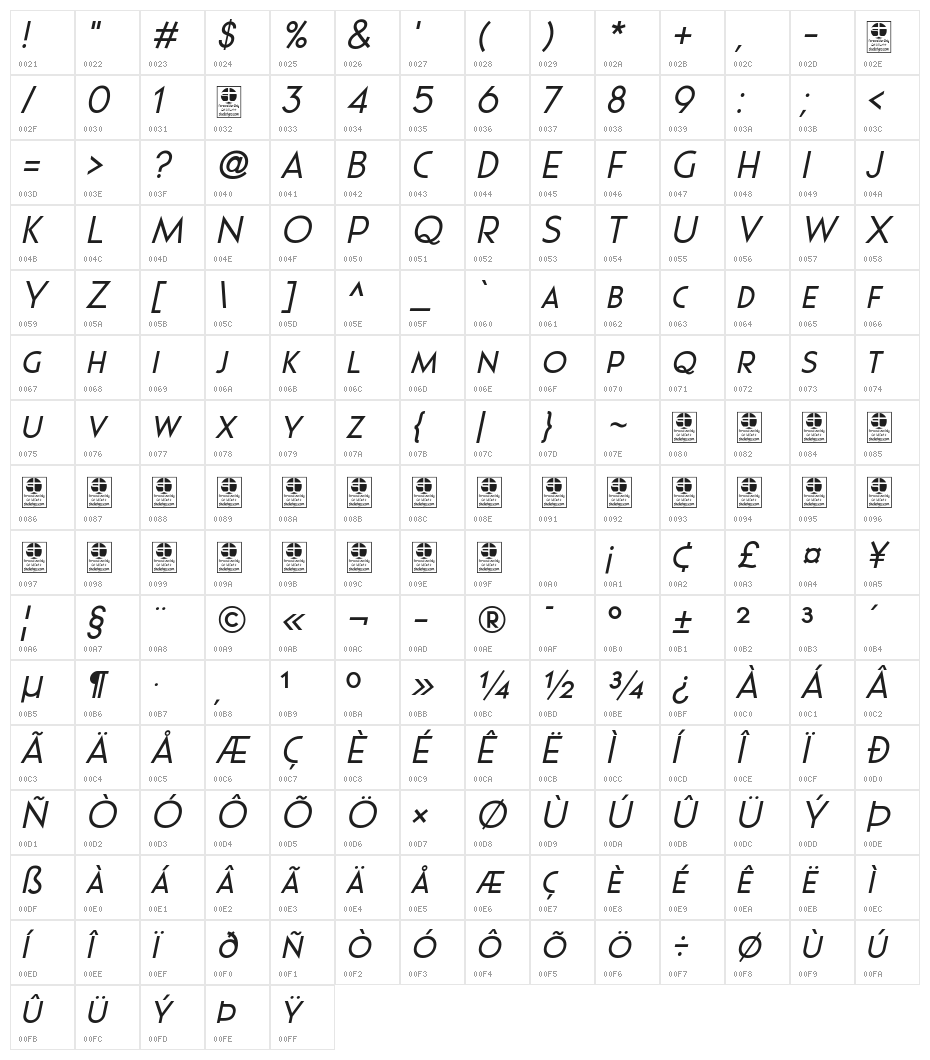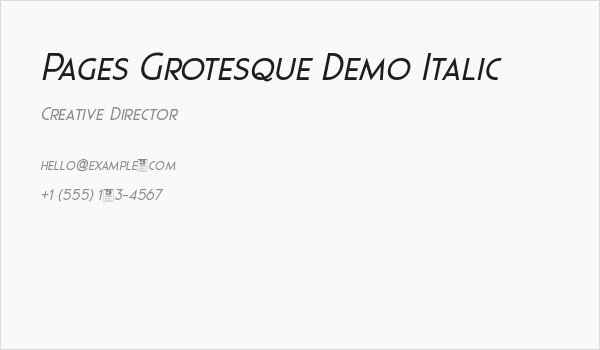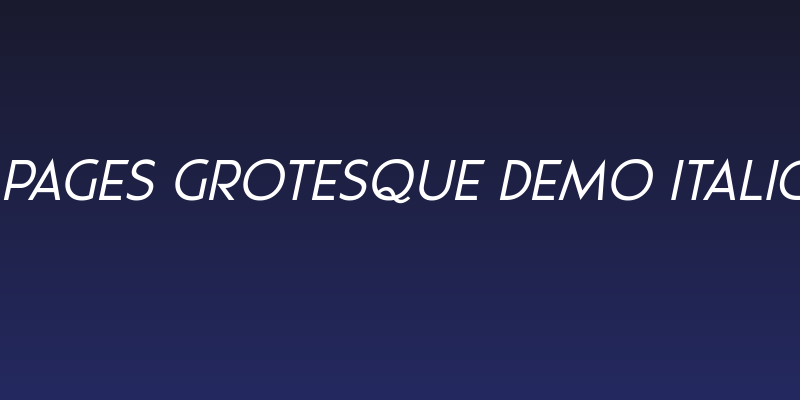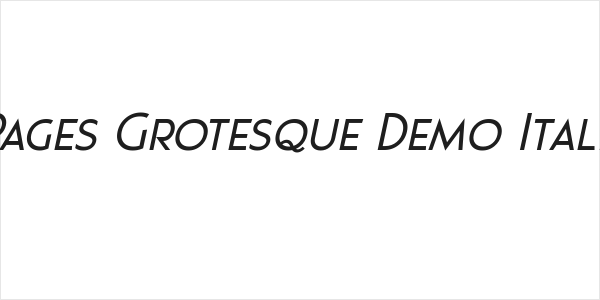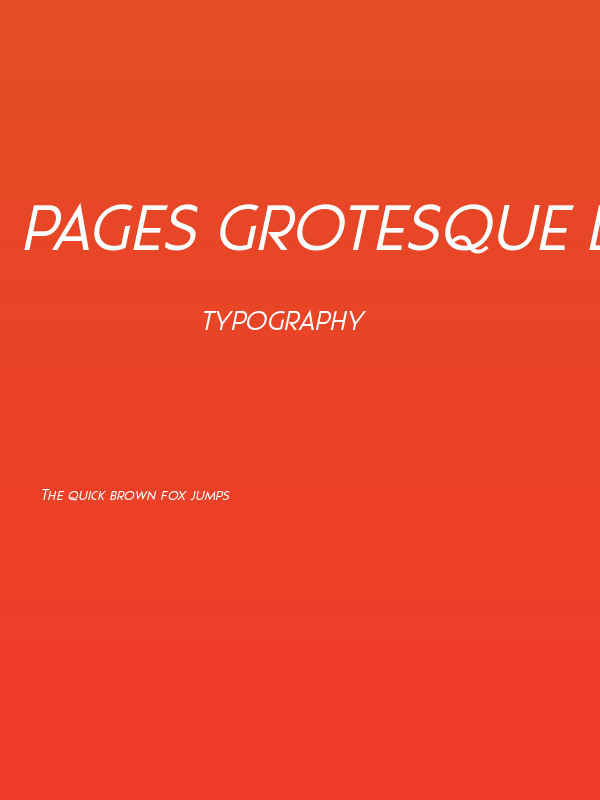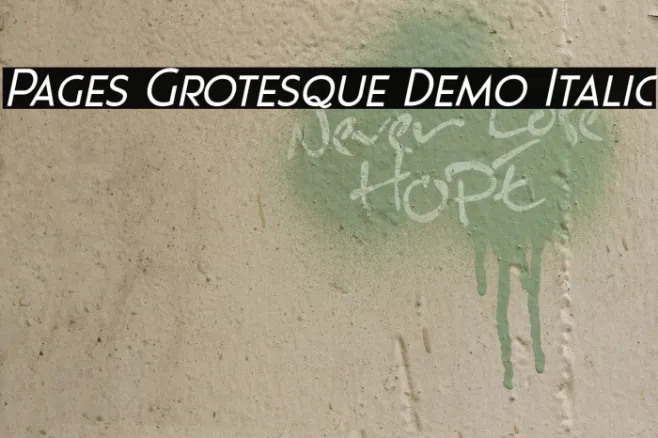
Pages Grotesque Demo Italic Font
Pages Grotesque Demo Italic Description
This font features a sleek and modern italic style with clean lines and a slightly condensed appearance. The characters are well-proportioned, offering a harmonious balance between elegance and readability. The uppercase letters are bold and commanding, while the lowercase letters maintain a consistent flow, enhancing the overall aesthetic. The numerals are distinct and easy to read, making them suitable for a variety of applications. The special characters are designed with the same attention to detail, ensuring they integrate seamlessly with the rest of the typeface.
| Use Case | Headlines, Logos, Editorial design |
| Proposed Projects | Ideal for branding, editorial design, advertising, and digital interfaces where a modern and sophisticated look is desired. |